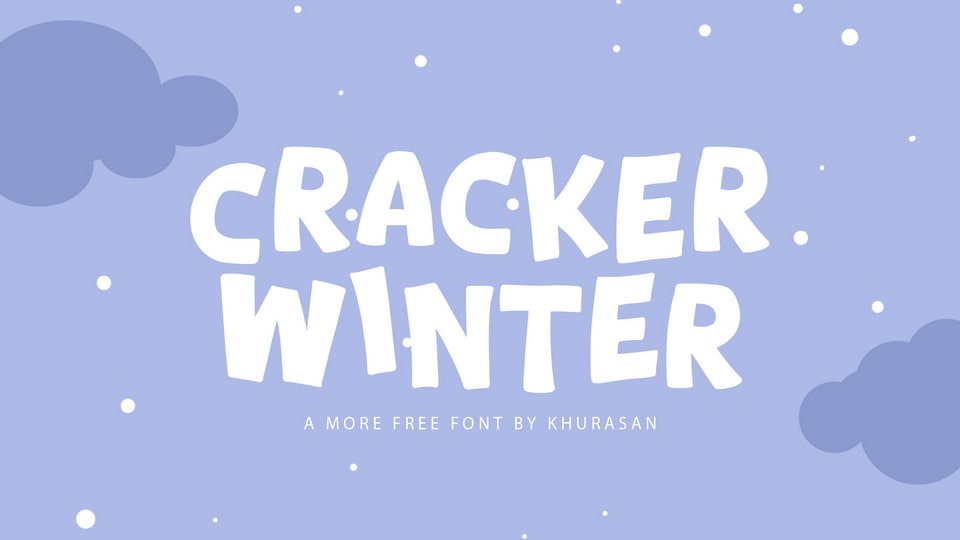
Download Cracker Winter font, a playful hand-lettered typeface that brings the charm of cartooning to life. Cracker Winter font is perfect for projects that demand a lighthearted and fun vibe.